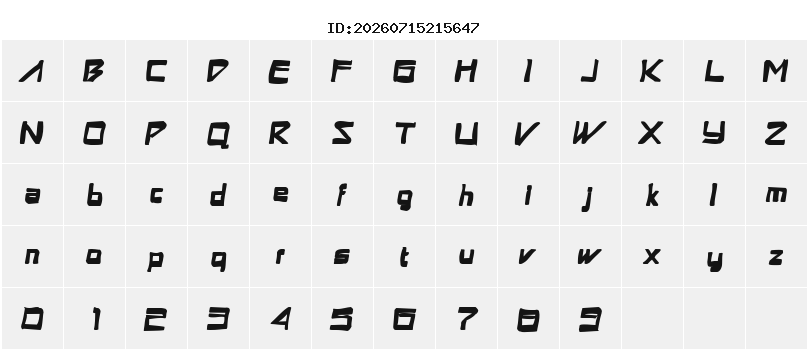
Astron Boy Ink Preview
• Font Name: Astron Boy Ink
• Font ID: RayLarabie: Astron Boy Ink: 2000
• Full Font Name: Astron Boy Ink
• Version: Version 1.0; 2000; initial release
• PostScript Name: AstronBoyInk
• Character Count: 298
• Designer: Ray Larabie
About Astron Boy Ink.ttf
Astron Boy Ink.ttf is a modern, elegant sans-serif font designed for ultimate readability and visual harmony. Perfect for branding, headlines, web design, and print materials.